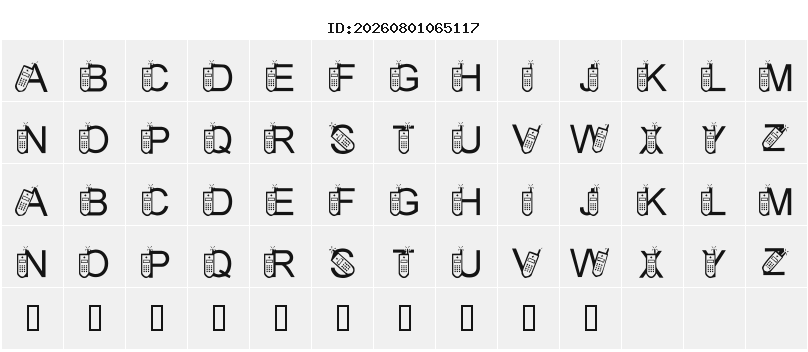
LMS Sprint Launches 3G Preview
• Font Name: LMS Sprint Launches 3G
About LMS Sprint Launches 3G.ttf
LMS Sprint Launches 3G.ttf is a modern, elegant sans-serif font designed for ultimate readability and visual harmony. Perfect for branding, headlines, web design, and print materials.